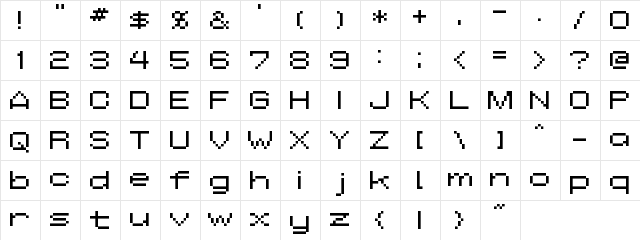
AddWBitmap09 Regular
Design Context for AddWBitmap09 Typeface
AddWBitmap09 is rooted in pixel-grid construction, making it a natural fit for game UI, retro computing aesthetics, and digital nostalgia projects.
A natural choice for retro game titles, chiptune music branding, 8-bit UI, and digital nostalgia projects.
Pro Tip: Pair AddWBitmap09 with flat colour palettes and simple geometric UI elements to reinforce its digital aesthetic.